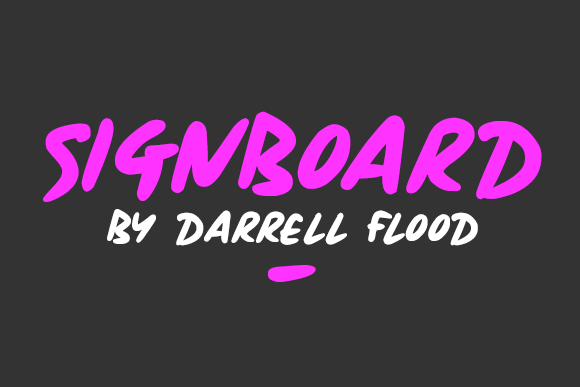
Signboard Font
About Signboard Font
Signboard is a rounded, casual font created in a handwritten style. This display sans serif font is suitable for a large array of project ideas.